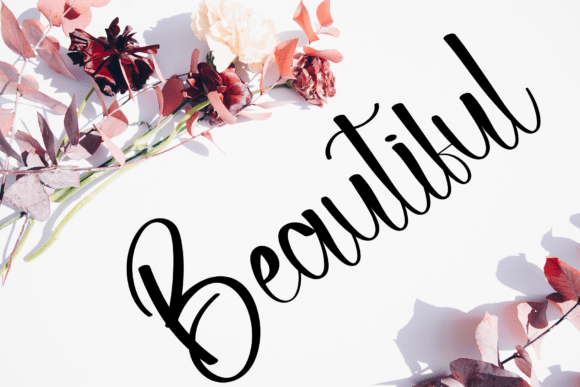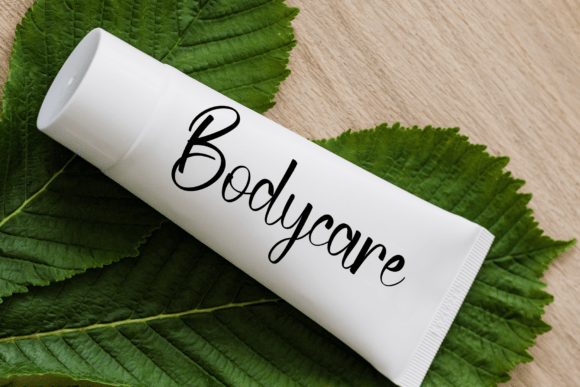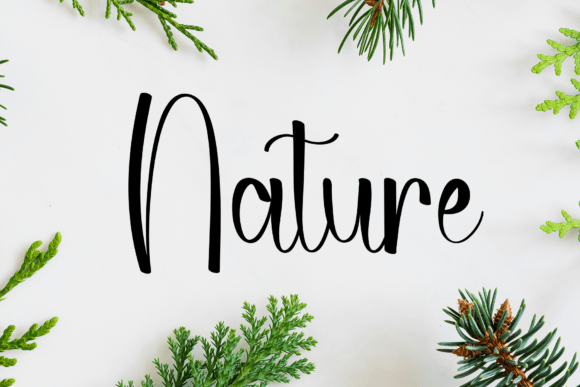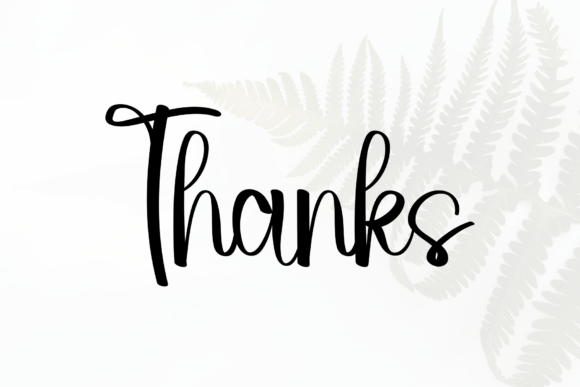
The Cute Valentine Font: A Modern Take on Romantic Typography
Valentine’s Day is just around the corner, and with it comes the quest for the perfect typography to convey love, affection, and sweetness. For designers and crafters, finding a font that captures the essence of romance without feeling overly traditional can be a challenge. This is where the Cute Valentine Font comes in – a modern, handwritten script that is both playful and elegant.
A New Style of Handwritten Script
The Cute Valentine Font is a masterclass in modern romantic typography. Its sweeping curves and rhythmic flow mimic high-end calligraphy but with a contemporary, approachable twist. This font is perfect for designers who want to convey affection and sweetness without feeling overly traditional. The Cute Valentine typeface features slender, graceful strokes that allow it to feel airy and light, making it a beautiful choice for delicate social media quotes or magazine headers.
Perfect for Wedding Stationery and Boutique Branding
The Cute Valentine font is a dream for wedding stationery, personalized gift tags, and boutique fashion branding. Its elegant and refined aesthetic makes it an ideal choice for designers who want to create romantic and sophisticated designs. Whether you’re designing wedding invitations, love letters, or romantic getaways, this font is sure to impress. Additionally, its slender strokes and airy feel make it perfect for boutique fashion branding, adding a touch of elegance and sophistication to any design.
Pairing Suggestions for a Balanced Look
To create a balanced and professional look, pair the Cute Valentine typeface with a minimalist sans serif font. This combination will add a touch of intimacy and romance to your design while maintaining a clean and modern aesthetic. The contrast between the elegant script and the clean sans serif will create a visually appealing design that is sure to capture the hearts of your audience.
Ideal for Branding Projects
The Cute Valentine font is especially effective for branding projects related to florists, jewelry, and luxury skincare. These industries require a touch of “hand-drawn” elegance to win over customers’ hearts, and this font delivers. Its unique and refined aesthetic will add a touch of sophistication and romance to any brand, making it perfect for businesses that want to stand out in their industry.
PUA Encoding for Easy Use
The Cute Valentine font comes with PUA (Private Use Area) encoding, making it easy to use and accessible for designers and crafters. With PUA encoding, you can easily access and use the font’s unique characters and glyphs, allowing you to create stunning designs with ease.
Design Tips and Inspiration
To get the most out of the Cute Valentine font, here are some design tips and inspiration:
- Use it for wedding stationery, love letters, and romantic getaways to create a sense of intimacy and romance.
- Pair it with a minimalist sans serif font to create a balanced and professional look.
- Use it for branding projects related to florists, jewelry, and luxury skincare to add a touch of elegance and sophistication.
In conclusion, the Cute Valentine Font is a modern take on romantic typography that is both playful and elegant. Its sweeping curves and rhythmic flow make it perfect for designers who want to convey affection and sweetness without feeling overly traditional. With its PUA encoding and versatile design, this font is ideal for wedding stationery, boutique branding, and a range of other design projects. So why settle for ordinary typography when you can add a touch of romance and elegance to your designs with the Cute Valentine Font?